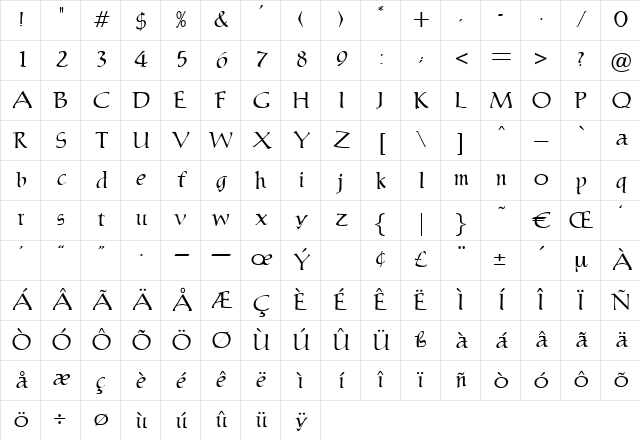
Caesar Regular
Caesar Family
Complete Caesar Regular glyph index. Displaying only characters natively supported by Caesar Regular font.
Design Context for Caesar
Caesar is a composed and adaptable typeface that performs quietly and consistently across a wide range of design contexts.